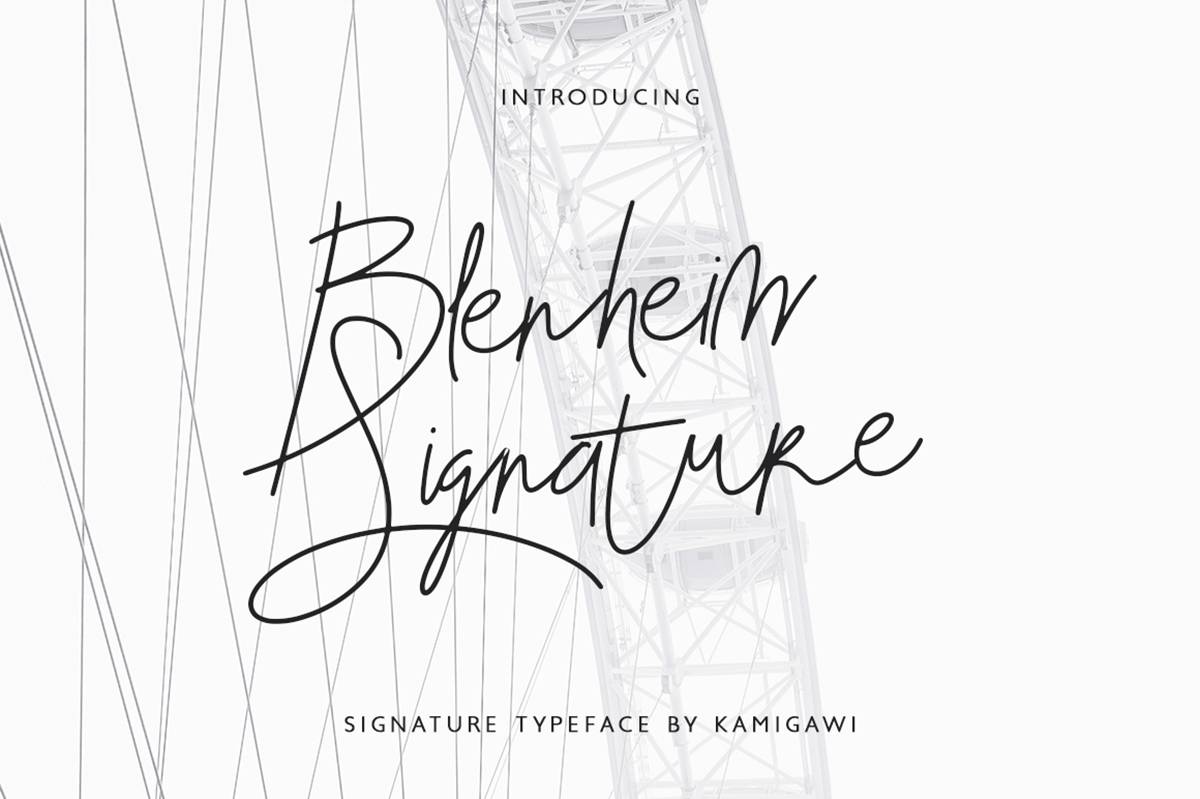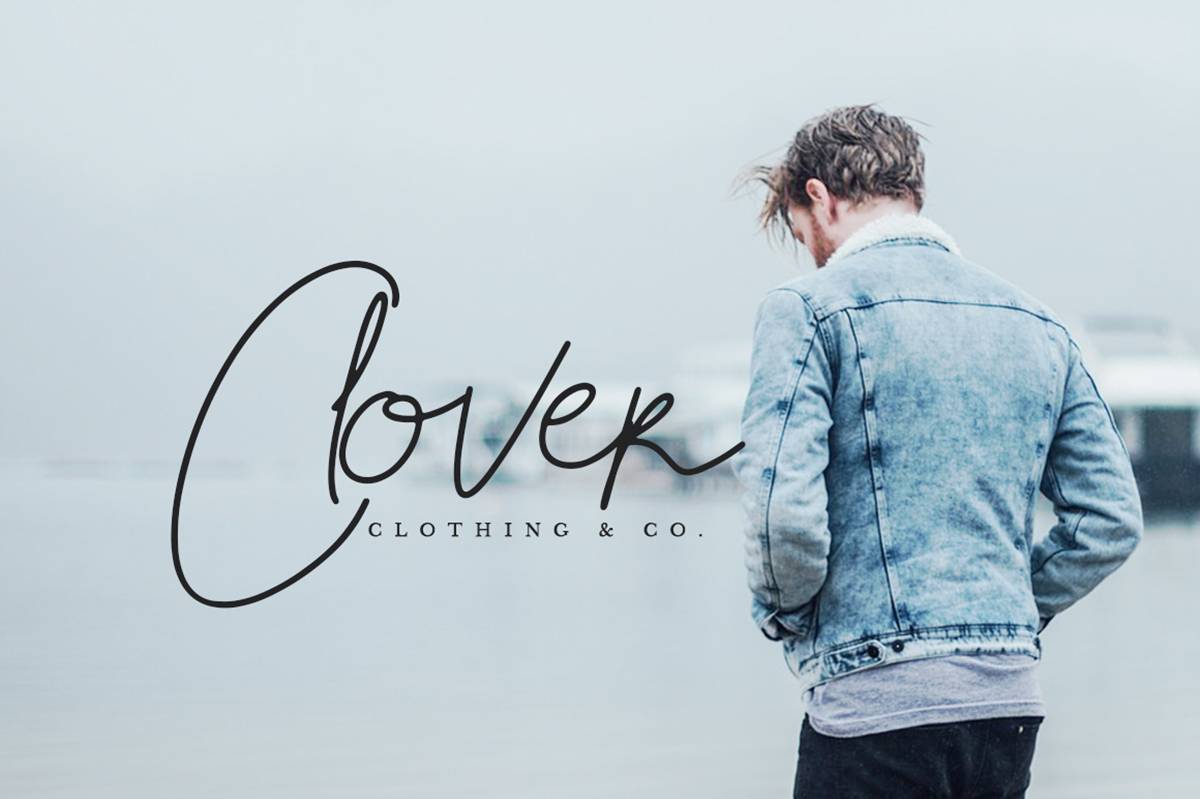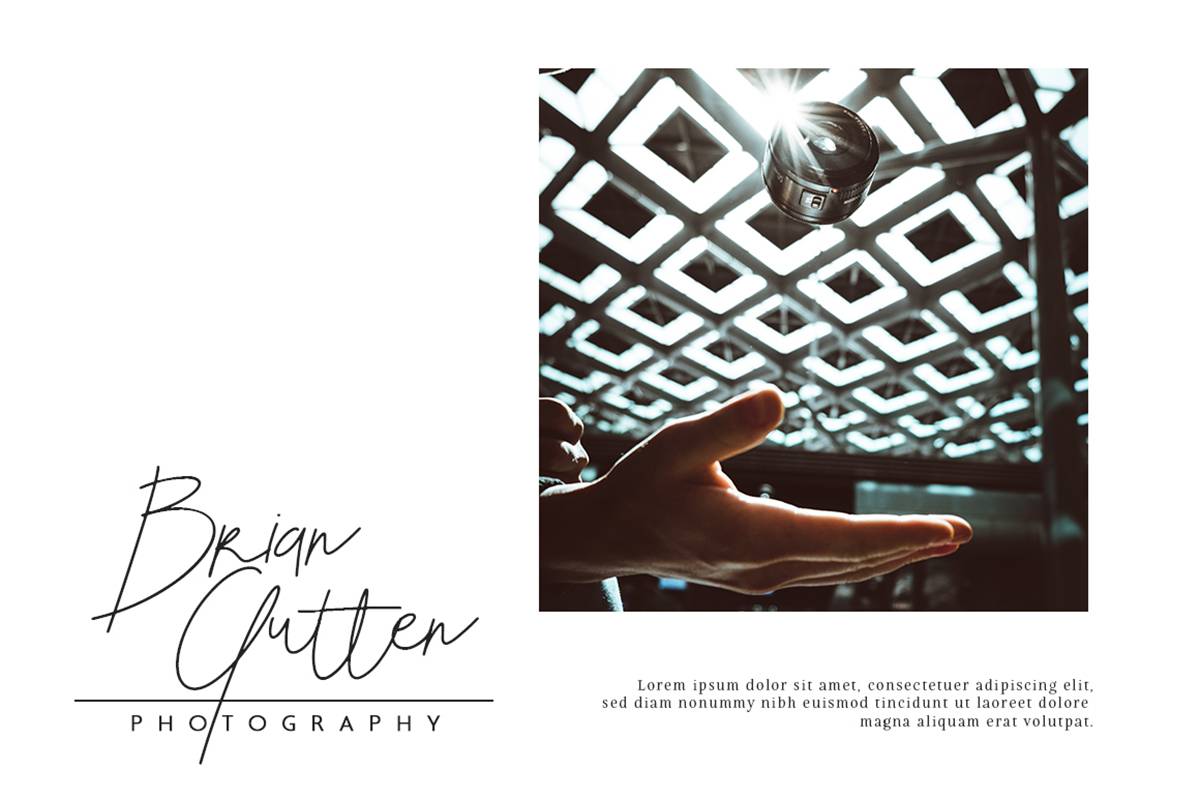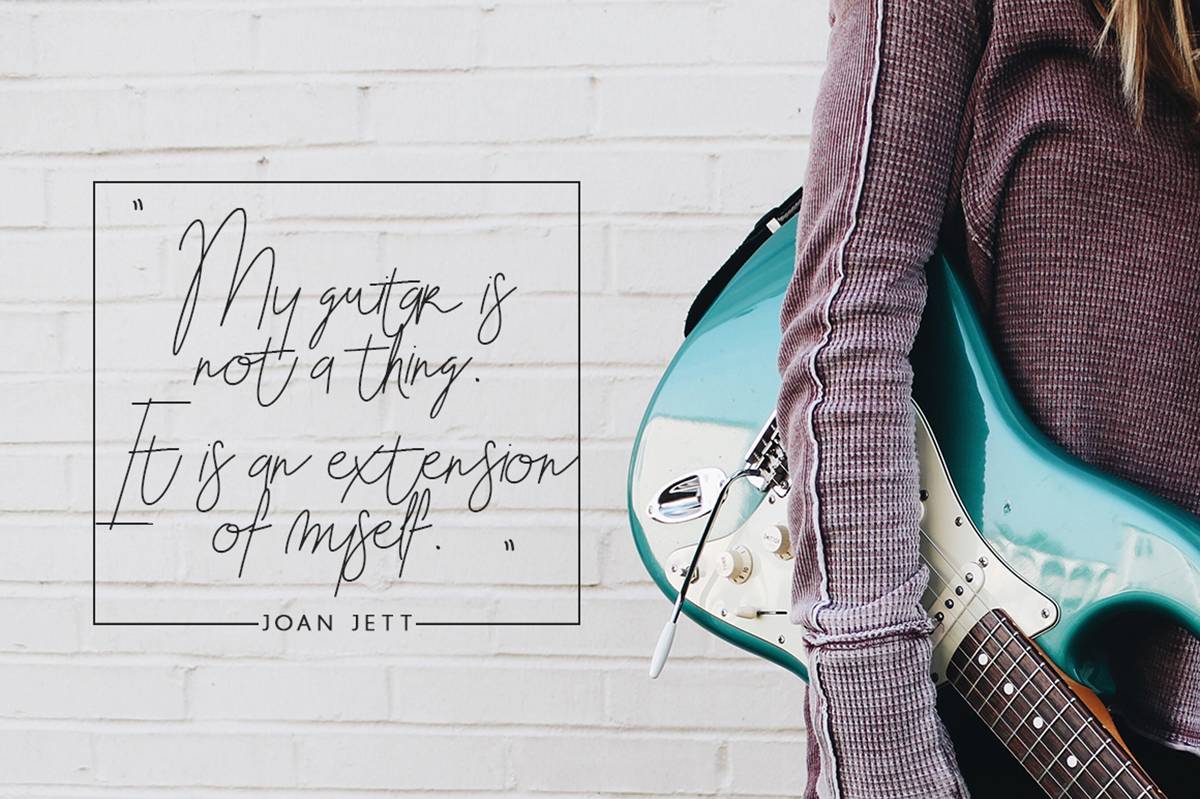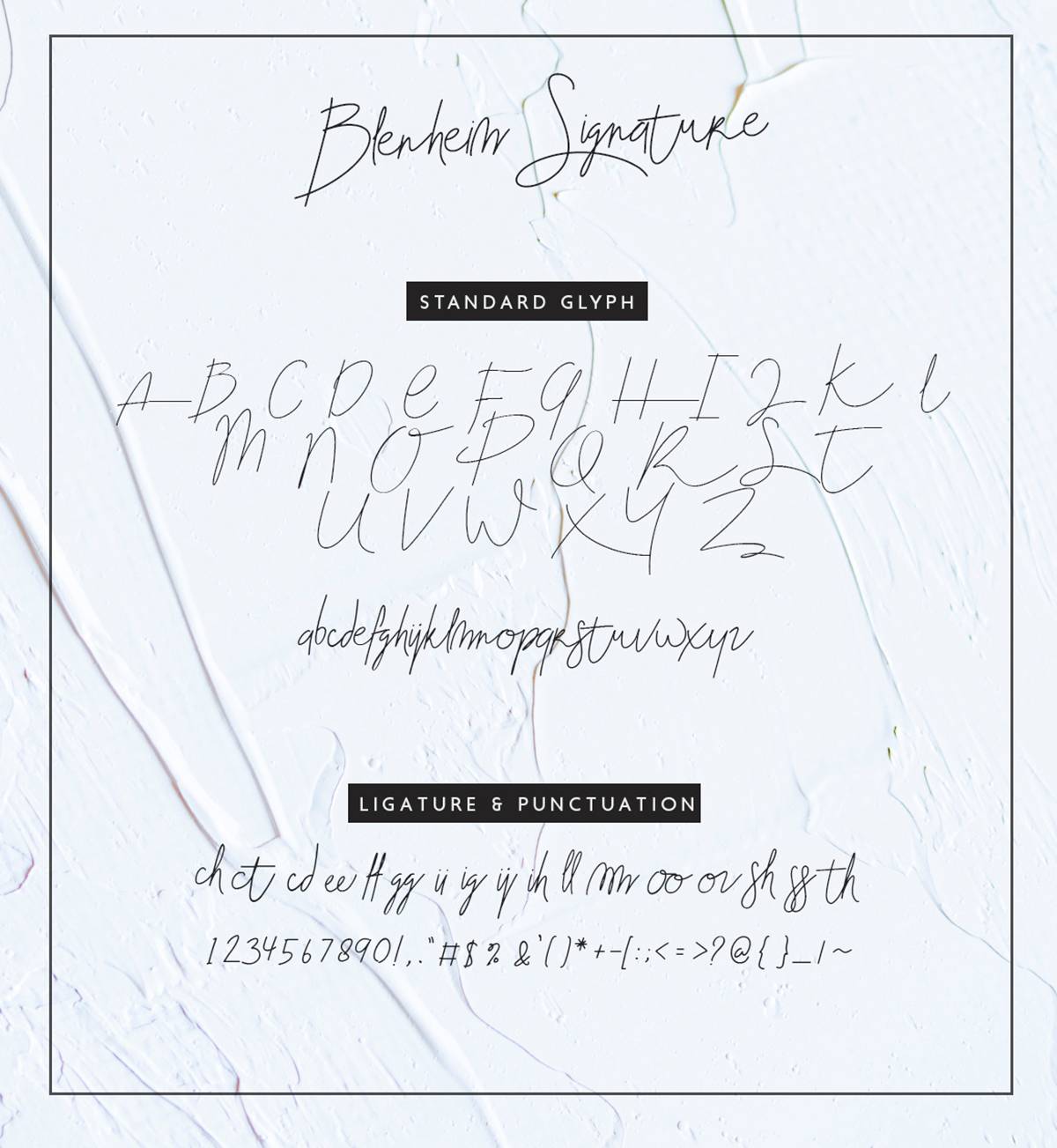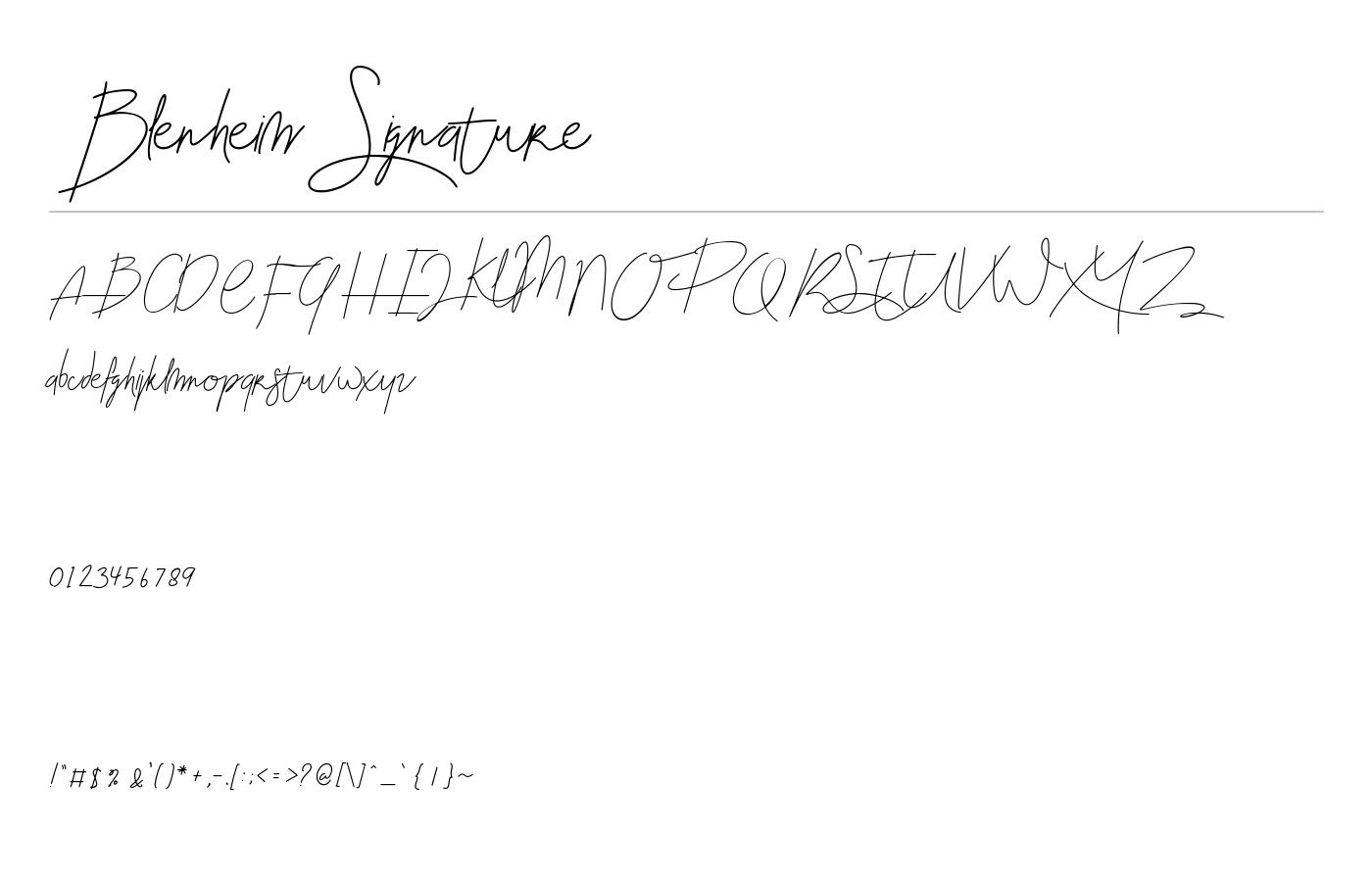
Blenheim Signature is a delicate, thin script font that mimics natural handwriting with an elegant, personal touch. Its tall, narrow letterforms with softly flowing lines create a sophisticated yet approachable style, making it perfect for branding, invitations, and artistic projects that seek a refined, human feel. This font works particularly well where a light, airy signature look is desired to add an authentic, stylish flair.
Blenheim Signature Font